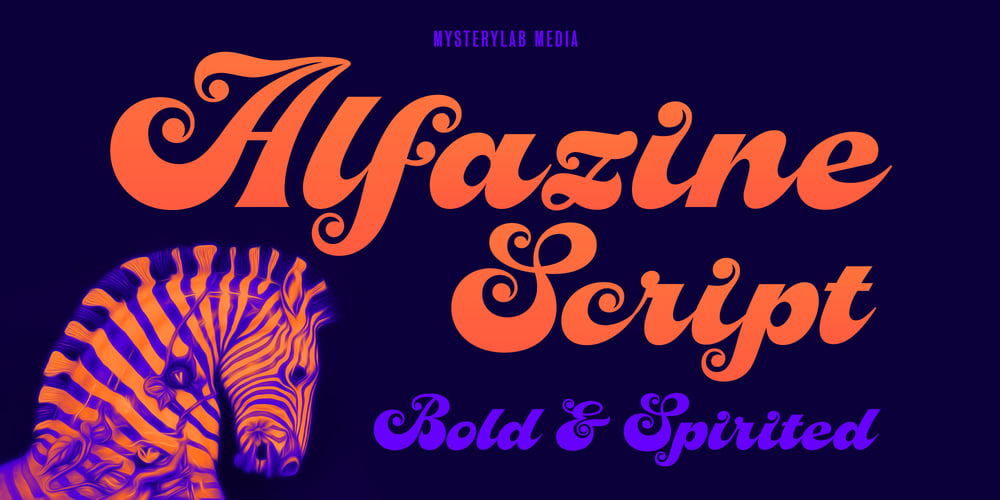
Alfazine Script Font Family was designed by Mott Jordan and published by Mysterylab. Alfazine Script contains 2 styles and family package options. Alfazine Script is a bold and spirited script with extensive ornate detailing. This versatile font is evocative of antique signpainters’ letters, circus wagon & carnival booth graphics, groovy 1960s psychedelic scripts, and even sportswear team insignias, all combined with a modern approach towards lively curlicues and ball finial stroke ends. As with all other font offerings from Mysterylab Designs, we take great care with artful kerning and weight-matching of glyphs to allow this font to be used not only at attention-grabbing headline and logo sizes, but also at small body copy sizes in extended passages. Alfazine also features an extruded shadow version that’s very useful for designing logos and customized layered lettering.